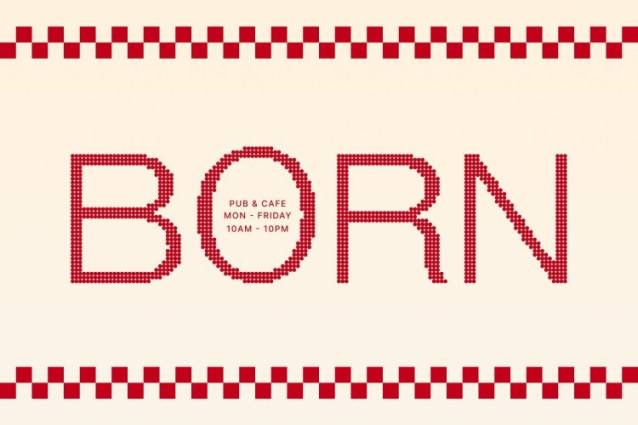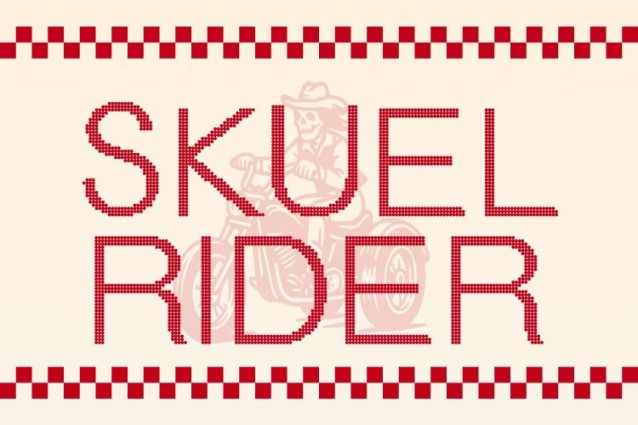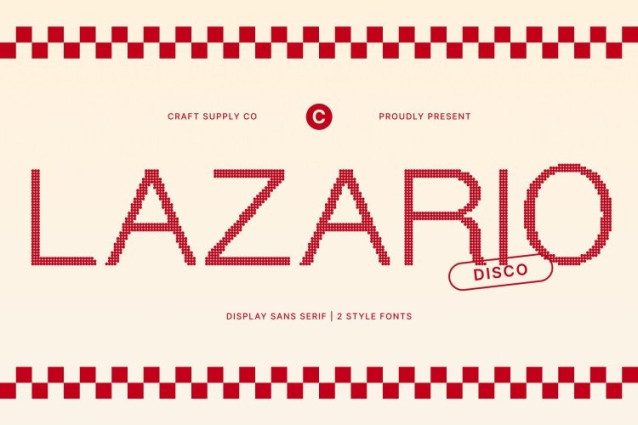
Lazario Disco Font
Lazario Disco Font is a modern sans serif font infused with the rhythm and glow of disco style. Its clean, contemporary structure is elevated by a subtle shimmer vibe that adds a retro twist, creating a typeface that feels both professional and artistic. Designed for modern creatives, this font brings clarity, confidence, and charisma to every project.
Retro Glow with Modern Precision
Blending sleek sans serif geometry with a touch of vintage shimmer, this font strikes the perfect balance between nostalgia and innovation. The refined letterforms exude professionalism, while the disco inspired highlights give each word a lively, radiant energy. This combination makes it ideal for designs that aim to be stylish yet approachable.
Perfect for Branding and Creative Design
This font excels in branding, editorial layouts, posters, and creative projects that demand sophistication with a vibrant edge. Its modern yet playful tone enhances logos, magazine titles, and promotional materials bringing a polished and engaging presence that draws the eye.
Professional, Artistic, and Radiantly Modern
This font isn’t just a font it’s a statement of modern creativity. With its clean lines, subtle shimmer, and retro inspired charm, it captures the best of both worlds: contemporary professionalism and disco-era flair. Use this font to give your designs a confident, artistic sparkle that stands out with timeless style.